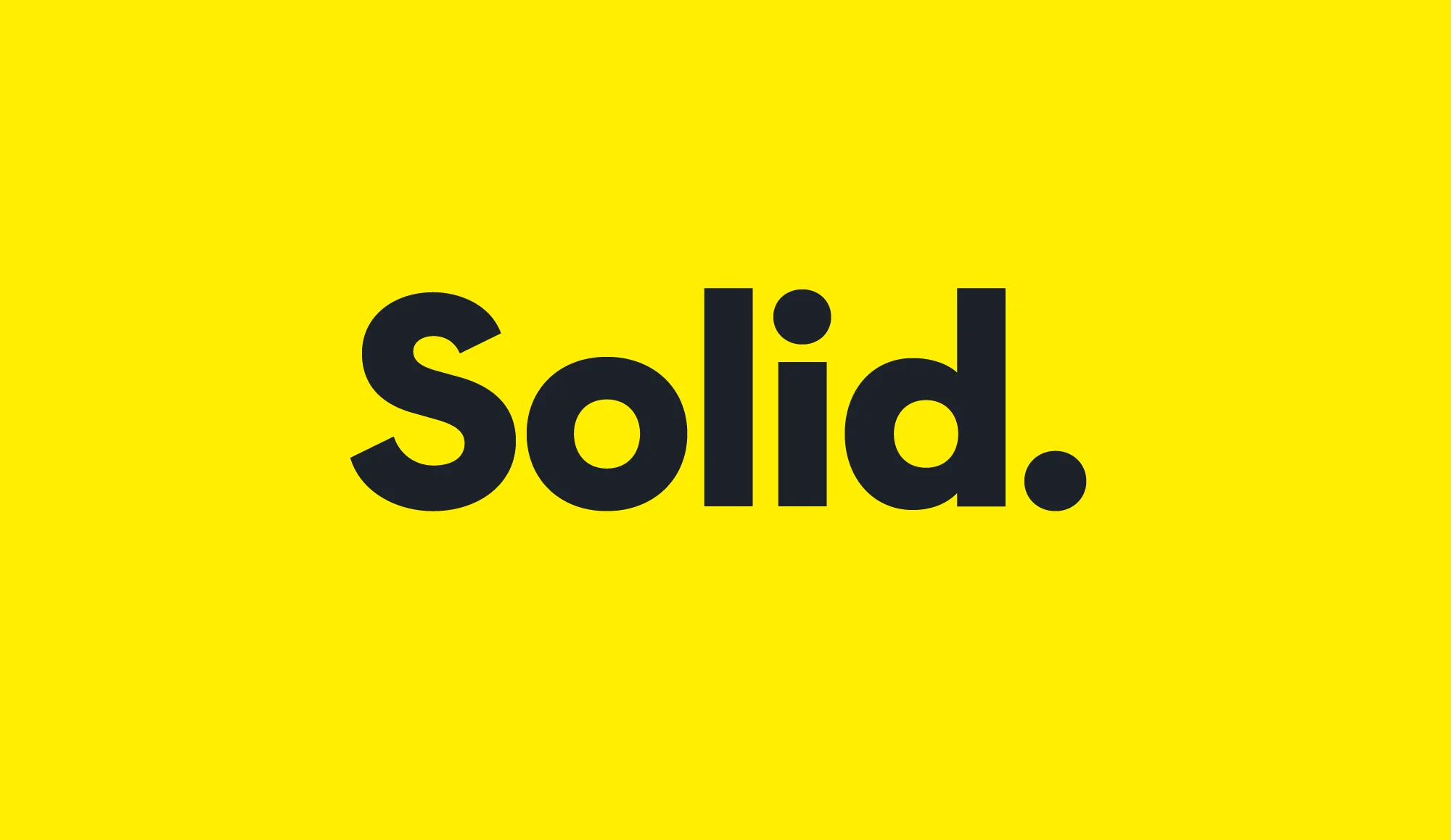
Graphit
A geometric sans from HvD Fonts with a technical, grid-informed character.
Graphit is a geometric sans-serif from HvD Fonts, the Munich-based foundry known for precise, well-crafted typefaces. The name suggests a construction rooted in grid or graph-paper logic, lending it a technical and structured quality suited to interface, branding and editorial applications.
The name and foundry context suggest a clean geometric or technical sans-serif in the HvD Fonts tradition, likely drawing on graph or grid-based construction principles.